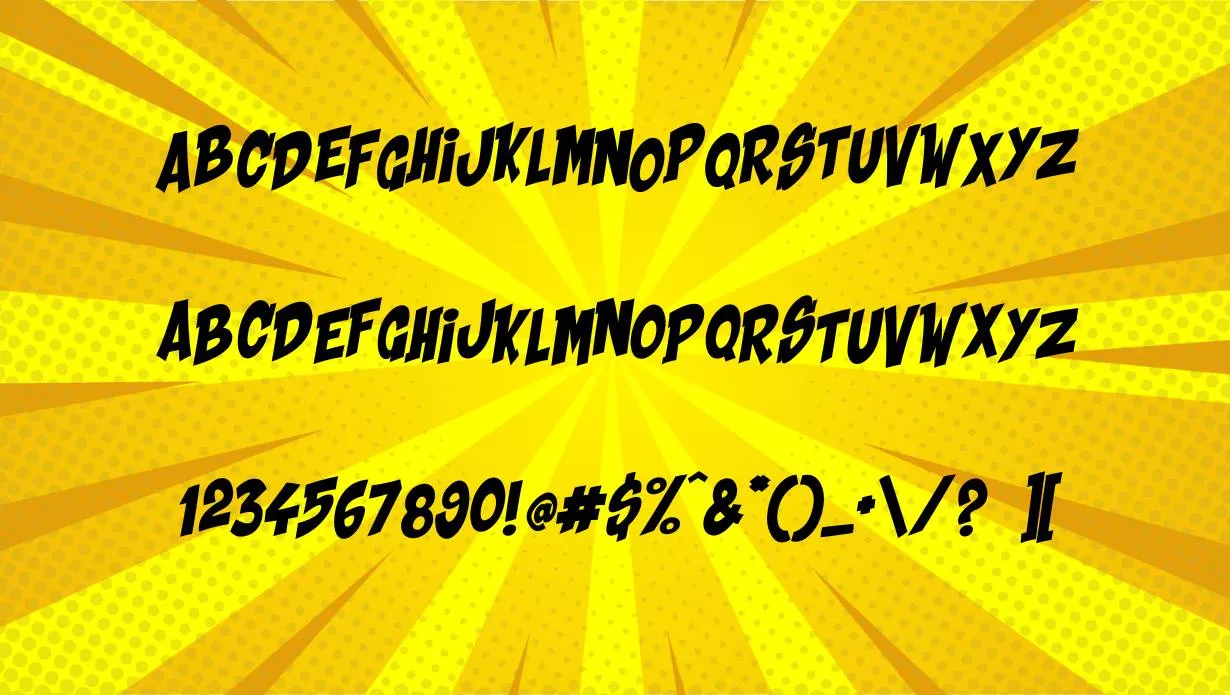
Shaka Pow font is like a burst of creativity in text form—bold, vibrant, and ready to make a statement. When you use it, your words become like an explosion of artistic expression, demanding attention.
Shaka Pow Font
NameShaka Pow Font
DesignerImagex
StyleFancy
It’s perfect for creating designs that need a touch of bold flair. Shaka Pow’s letters are like fireworks, each one contributing to the overall visual spectacle of your powerful message.